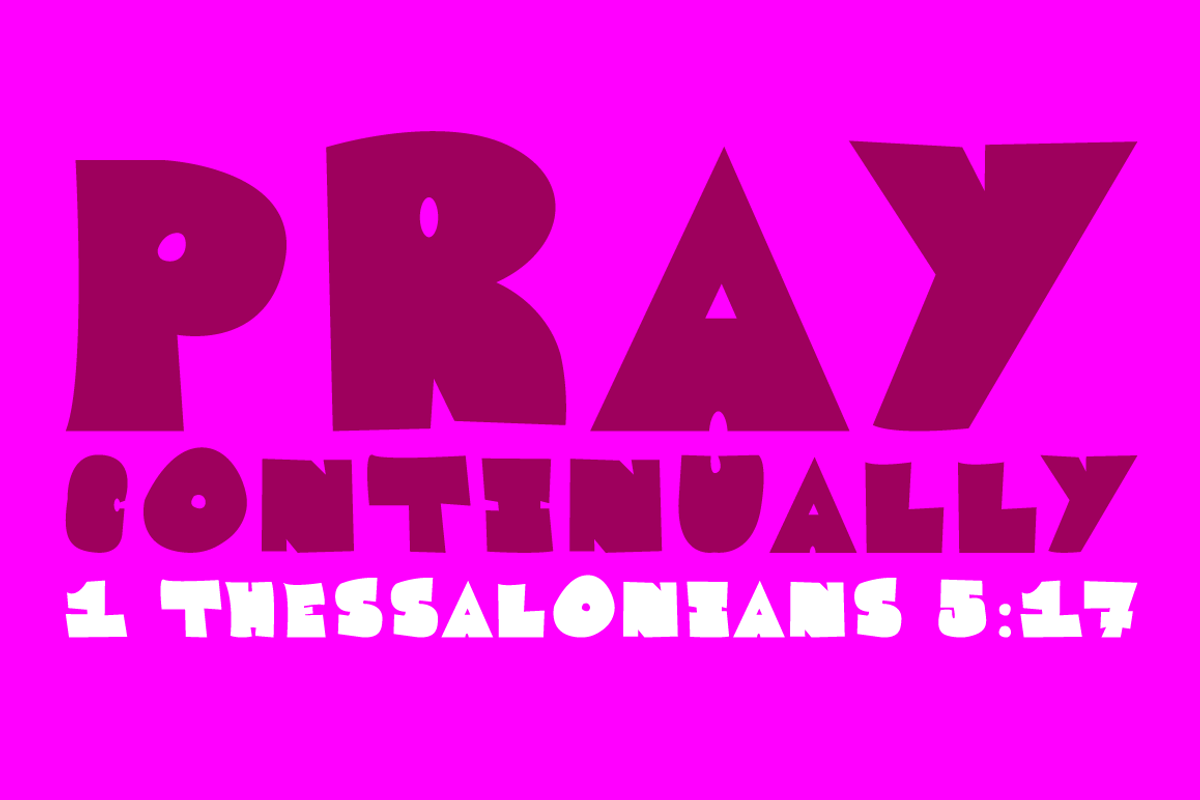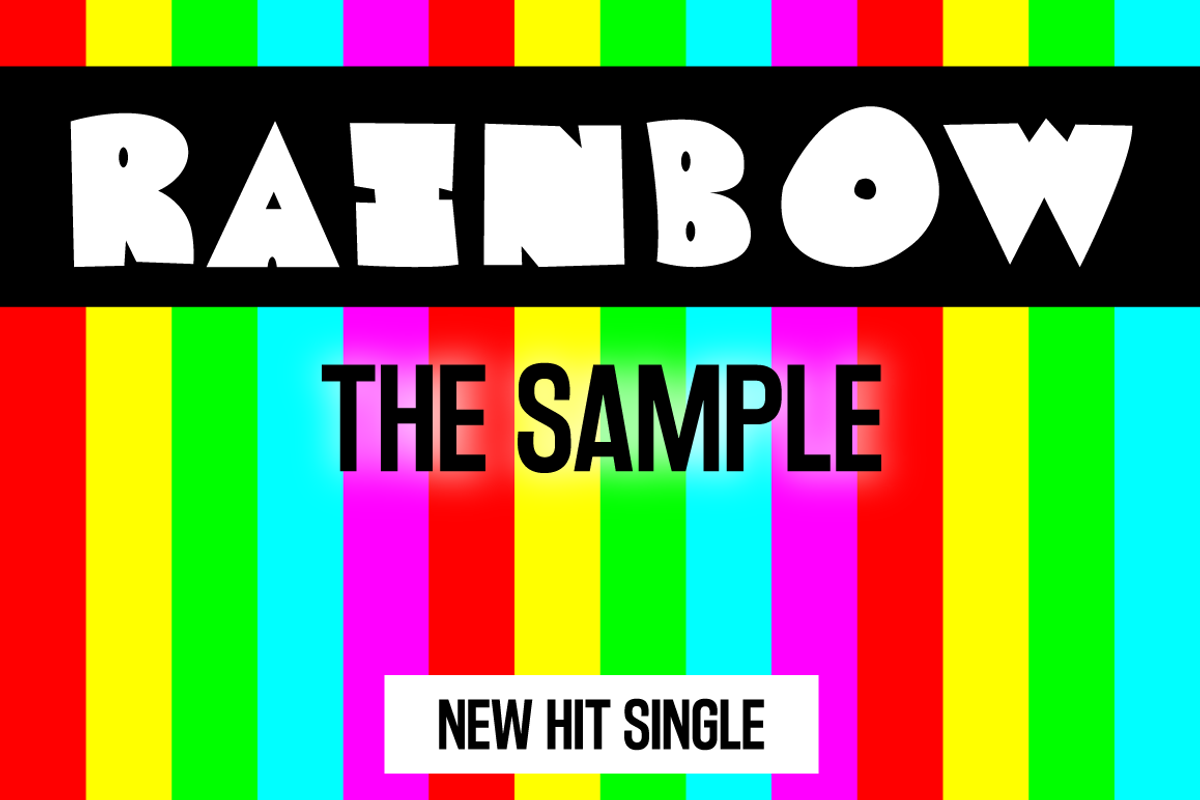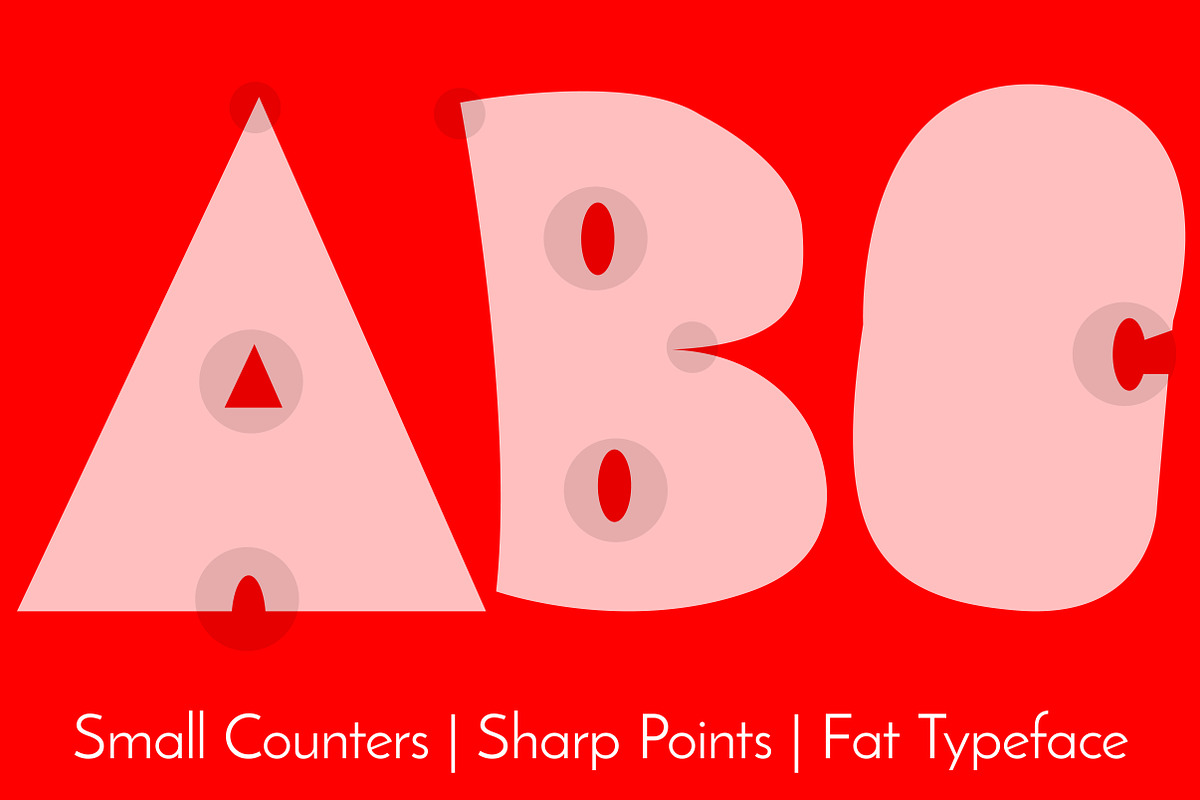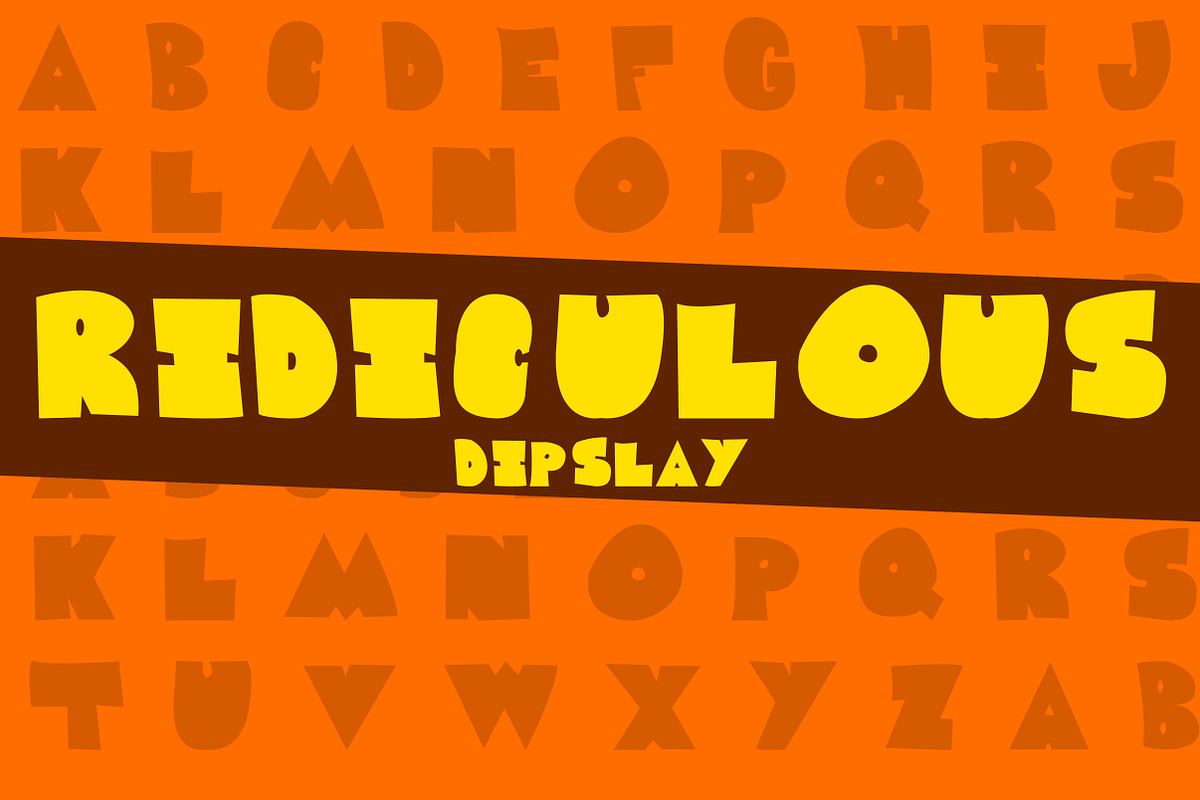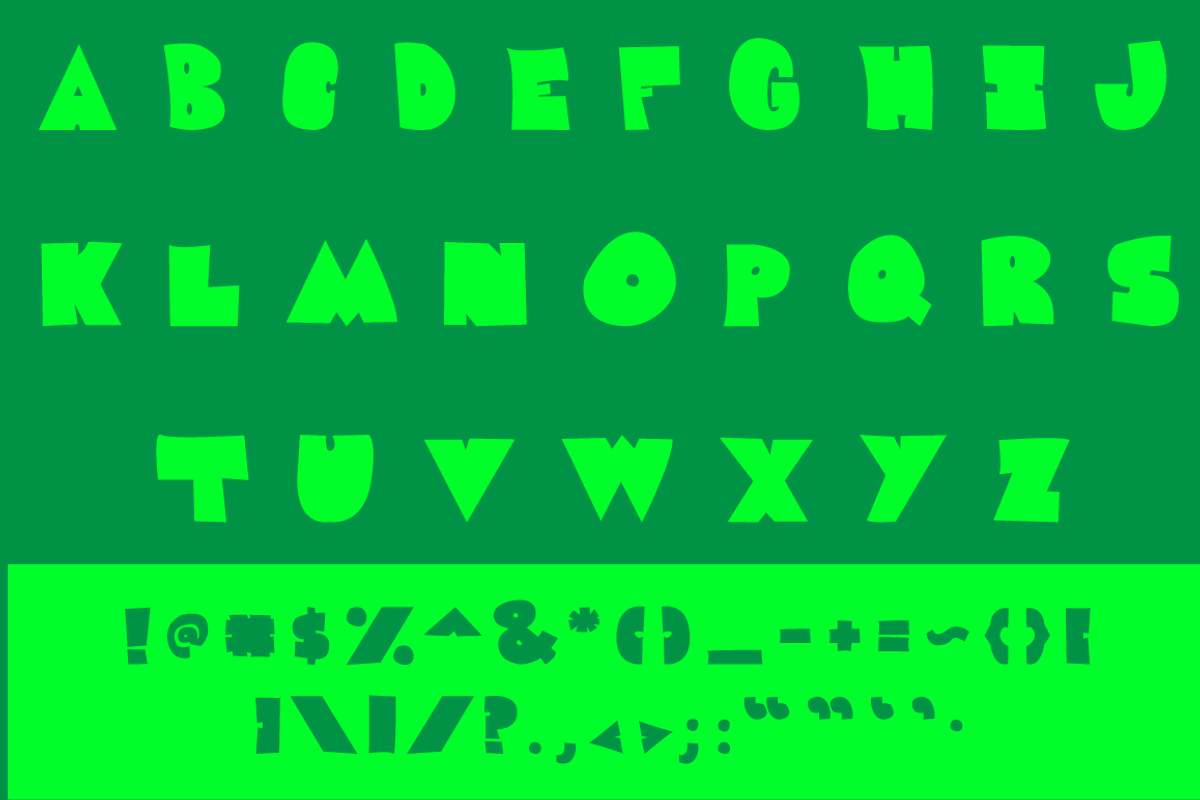
Ridiculous Typeface
The Ridiculous Typeface is a sans-serif, display fat typeface. It's dedicated to my dad who is ridiculously fun. :)
Ridiculous Typeface by DefayDesigns fits naturally into Branding, posters, packaging, typography.